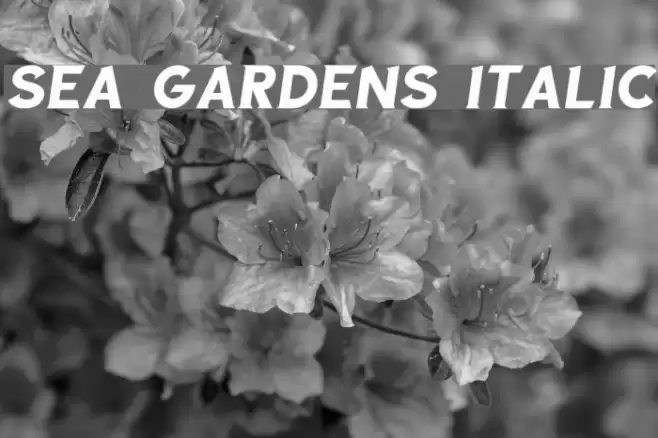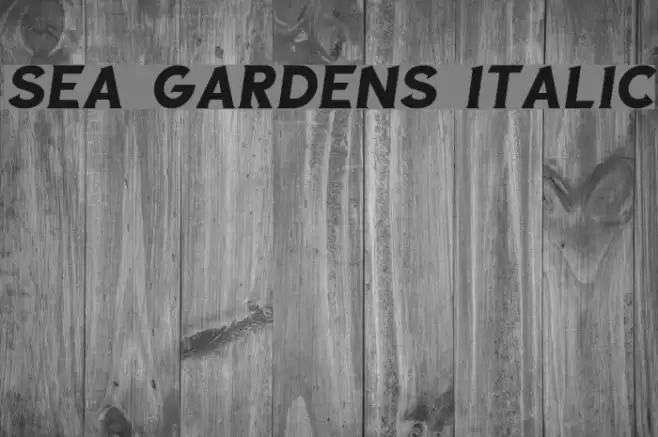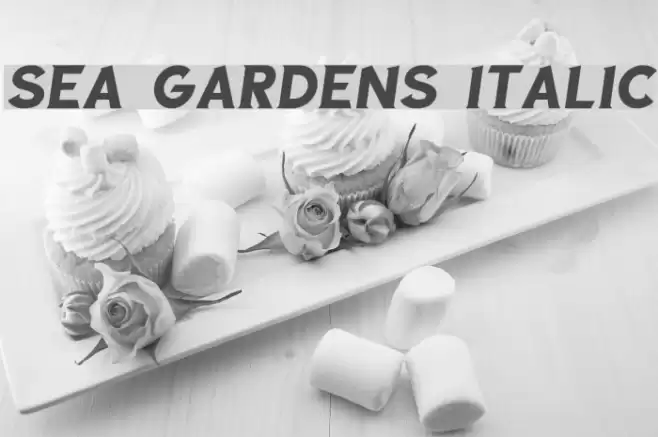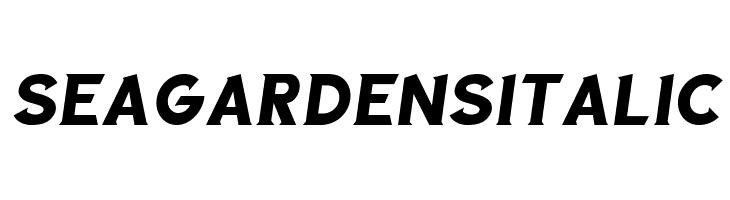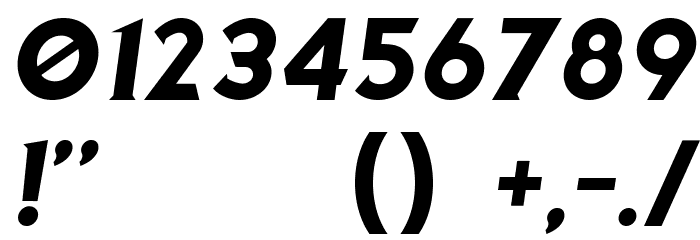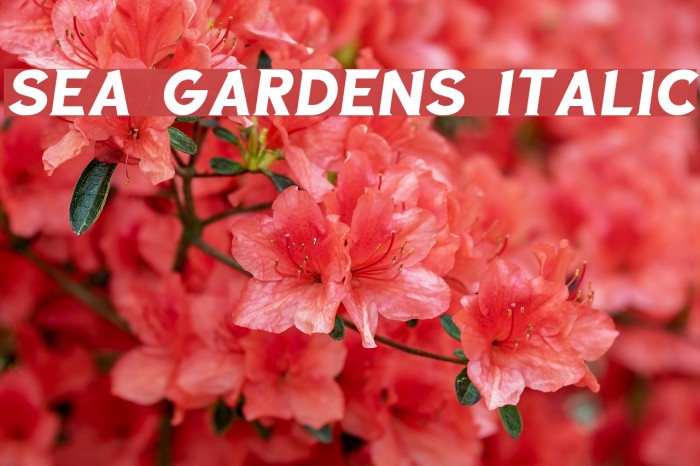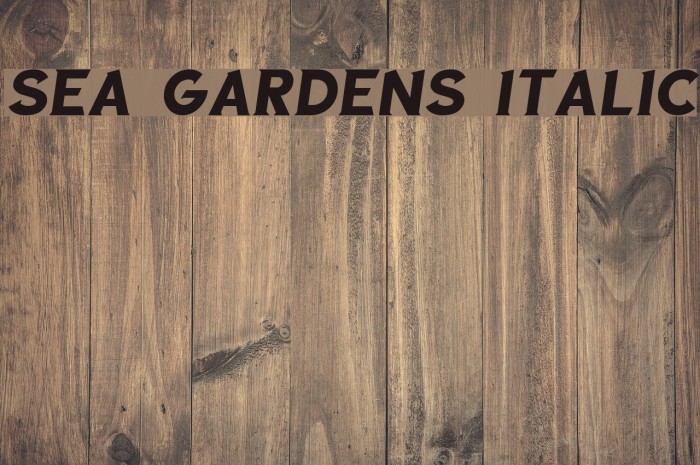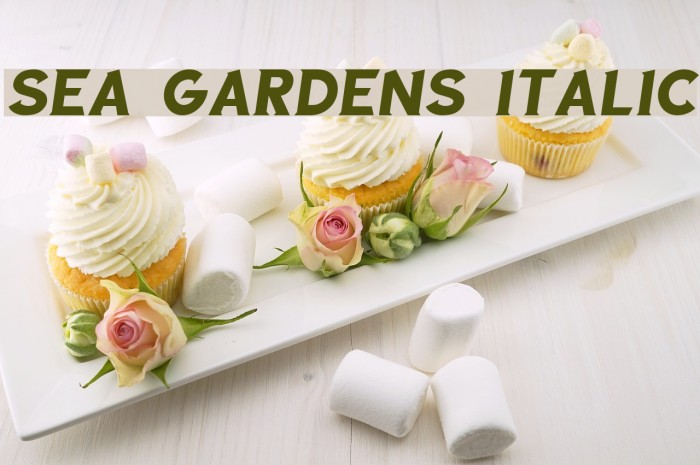
Sea Gardens Italic Font
Sea Gardens Italic Description
This font features a dynamic and energetic italic style, characterized by its forward-leaning posture and bold presence. The letters are crafted with a slight slant, giving a sense of motion and fluidity. The strokes are thick and consistent, providing a strong visual impact. The font maintains a modern aesthetic with clean lines and a uniform structure, making it versatile for various design applications. The numerals and special characters are designed to complement the alphabet, maintaining the same bold and italicized style. Overall, this font exudes a sense of confidence and modernity.
A bold, italicized font with a modern and dynamic style from Uncategorized fonts.
- Proposed Projects: Ideal for branding, advertising, headlines, and any project requiring a strong, modern typeface.
- Use Case: Headlines, Logos, Branding